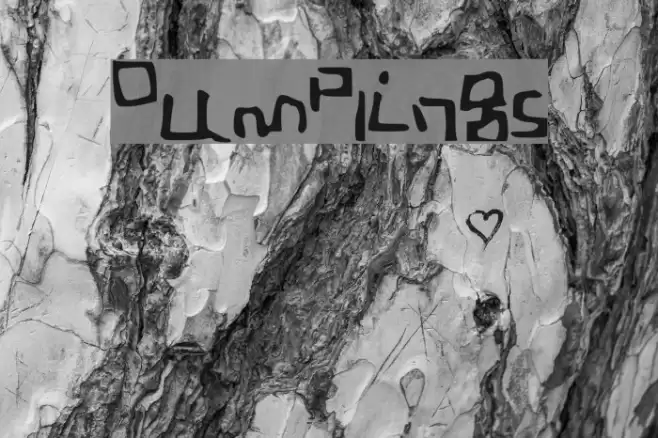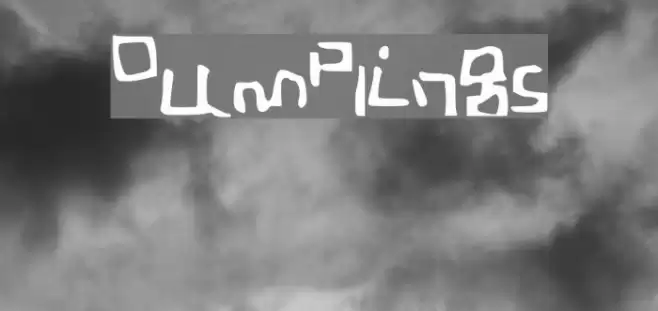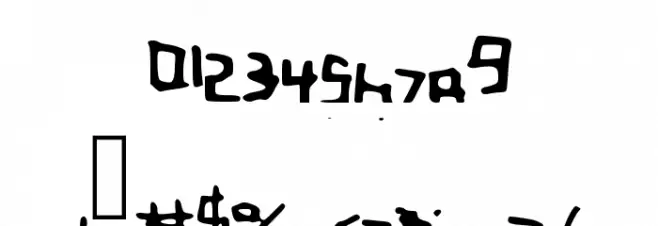
Dumplings Font
Dumplings Description
This font features a playful and irregular design, with each character exhibiting a unique, hand-drawn appearance. The strokes are uneven, giving it a whimsical and casual feel. The uppercase and lowercase letters maintain a consistent style, with quirky angles and varying line thicknesses. Numbers and special characters follow the same playful aesthetic, making the font suitable for creative and informal projects. The overall look is reminiscent of doodles or sketches, adding a personal touch to any design.
A playful, hand-drawn font with irregular strokes and a whimsical style from Uncategorized fonts.
- Proposed Projects: Ideal for children's books, casual invitations, creative posters, and playful branding.
- Use Case: Headlines, Logos, Informal Text